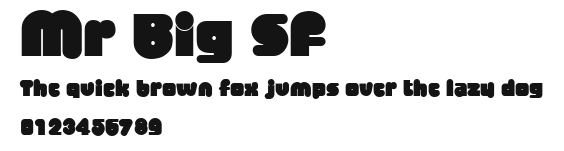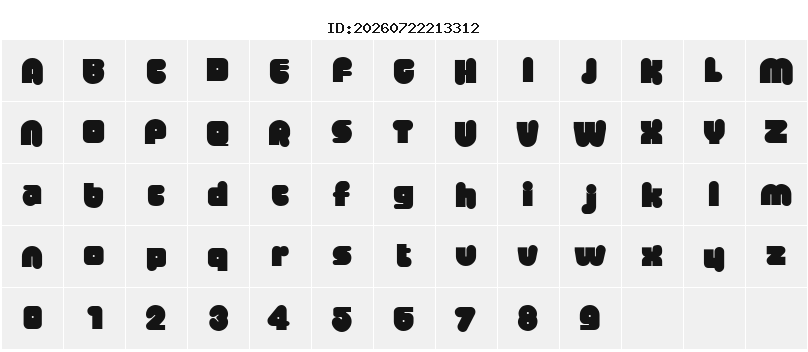
• Font Name: Mr Big SF
Mr Big SF.ttf is a modern, elegant sans-serif font designed for ultimate readability and visual harmony. Perfect for branding, headlines, web design, and print materials.